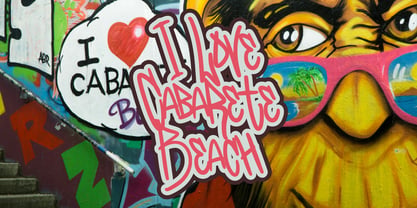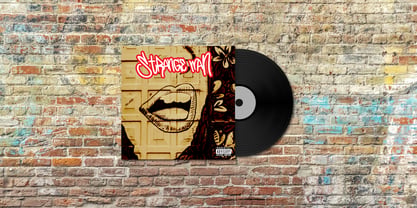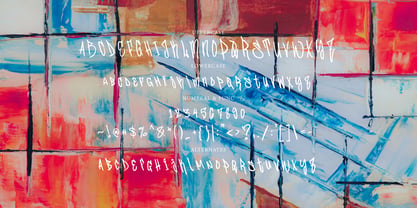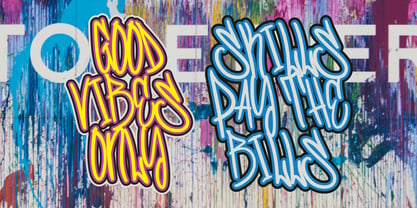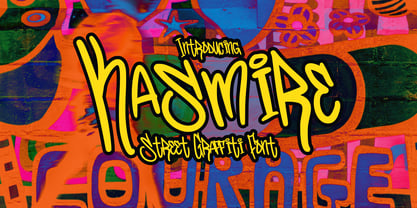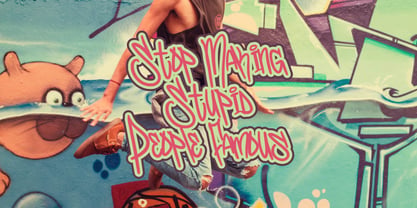
Kasmire Graffiti
by Tebaltipis Studio
The Kasmire Graffiti Font Family was designed by Dzulka Elfira and published by Tebaltipis Studio. Kasmire Graffiti contains 1 styles. More about this family
Kasmire Graffiti Font
Dive into the world of contemporary design with Kasmire Graffiti Font, a stylish Graffiti font that exudes a sleek and sophisticated vibe. With its seamless strokes and modern aesthetics, Kasmire Graffiti Font is the perfect choice for design projects that require a touch of minimalism and elegance.
Designers: Dzulka Elfira
Foundry: Tebaltipis Studio
Kasmire Graffiti